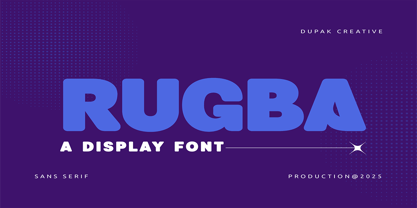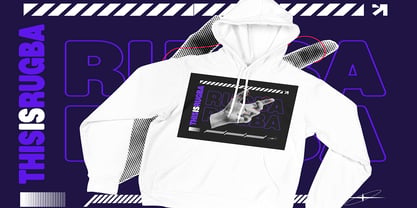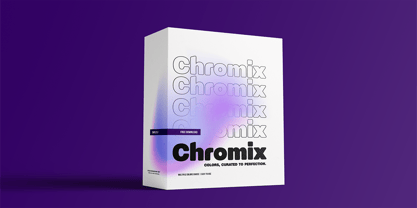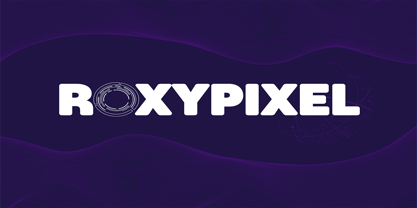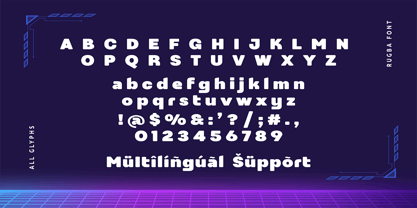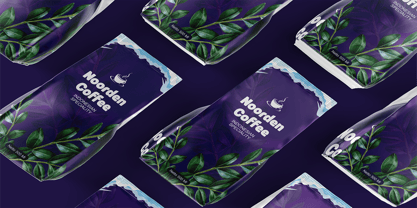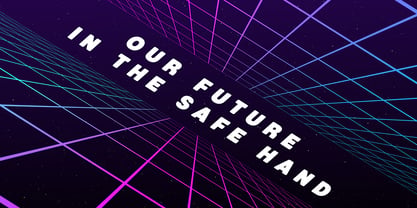
Rugba
Meet Rugba – Bold, Ultra-Heavy, and Unapologetically Modern
Rugba is a commanding display sans-serif font engineered to make a massive visual impact. Built with ultra-thick letterforms, tight spacing, and a subtle retro-futuristic edge, Rugba is designed for creators who want their typography to be the center of attention. Whether you are aiming for high-energy streetwear vibes, modern packaging, or striking digital visuals, Rugba delivers presence without saying a word.
This heavy-hitter sans serif brings a solid, grounded structure paired with playful, soft curves that keep it feeling fresh and dynamic rather than rigid.
• High-Impact Display Presence: Optimized specifically for massive headlines, logos, posters, and hero text where readability and sheer scale matter most.
• Full Character Set: Packed with standard uppercase and lowercase alphabets, essential punctuation symbols, and standard numerical digits.
• Multilingual Support: Ready for global reach with extended character glyphs to support diverse language styling.
• Versatile Vector Forms: Clean outlines that look incredibly sharp on both printed merchandise and high-resolution digital interfaces.
Thanks to its chunky, geometric aesthetic, Rugba thrives across a wide spectrum of modern design applications:
• Streetwear & Apparel: Gives apparel designs a bold, industrial, yet premium look, perfect for hoodies and graphic tees.
• Tech & Cyberpunk Visuals: Pairs seamlessly with neon grid lines, dark synthwave backgrounds, and tech-forward branding.
• Product Packaging: Bold enough to anchor product boxes and give premium specialty goods like coffee pouches a punchy, contemporary identity.
• Editorial Headlines & Motion Graphics: Perfect for title screens, posters, and massive hero banners that need to instantly grab attention.